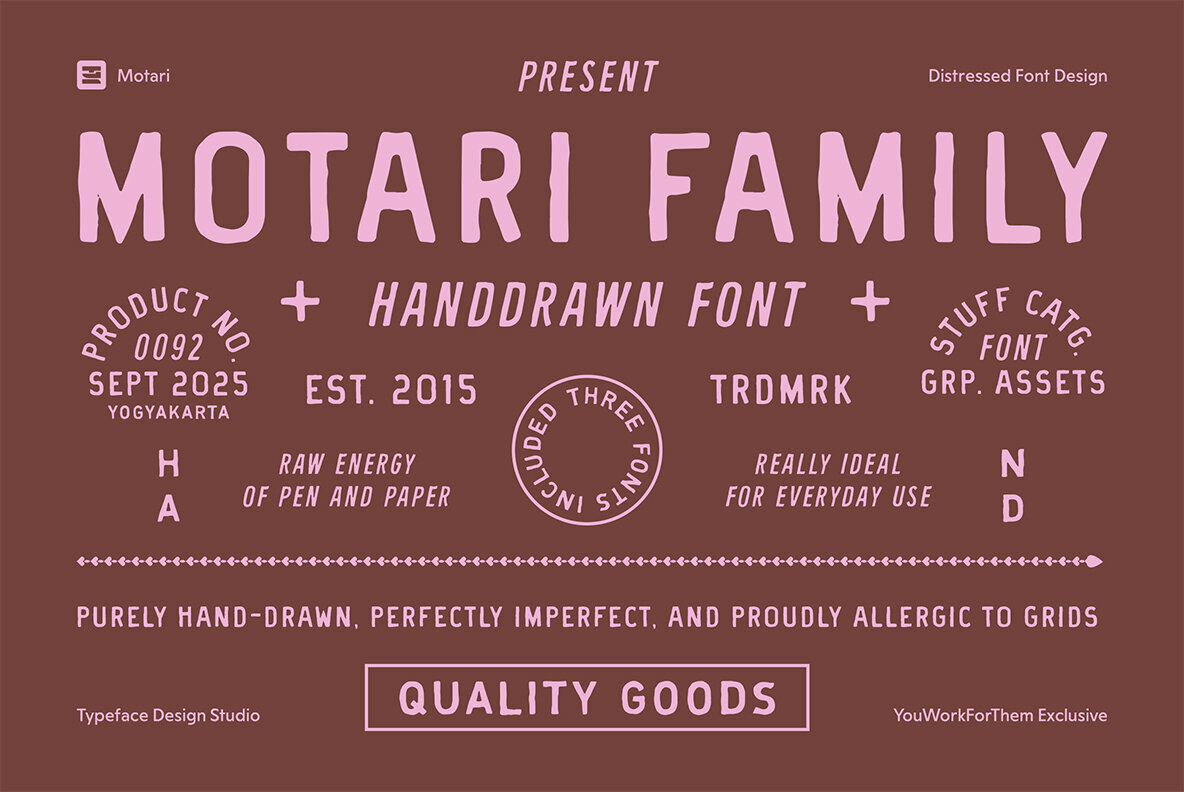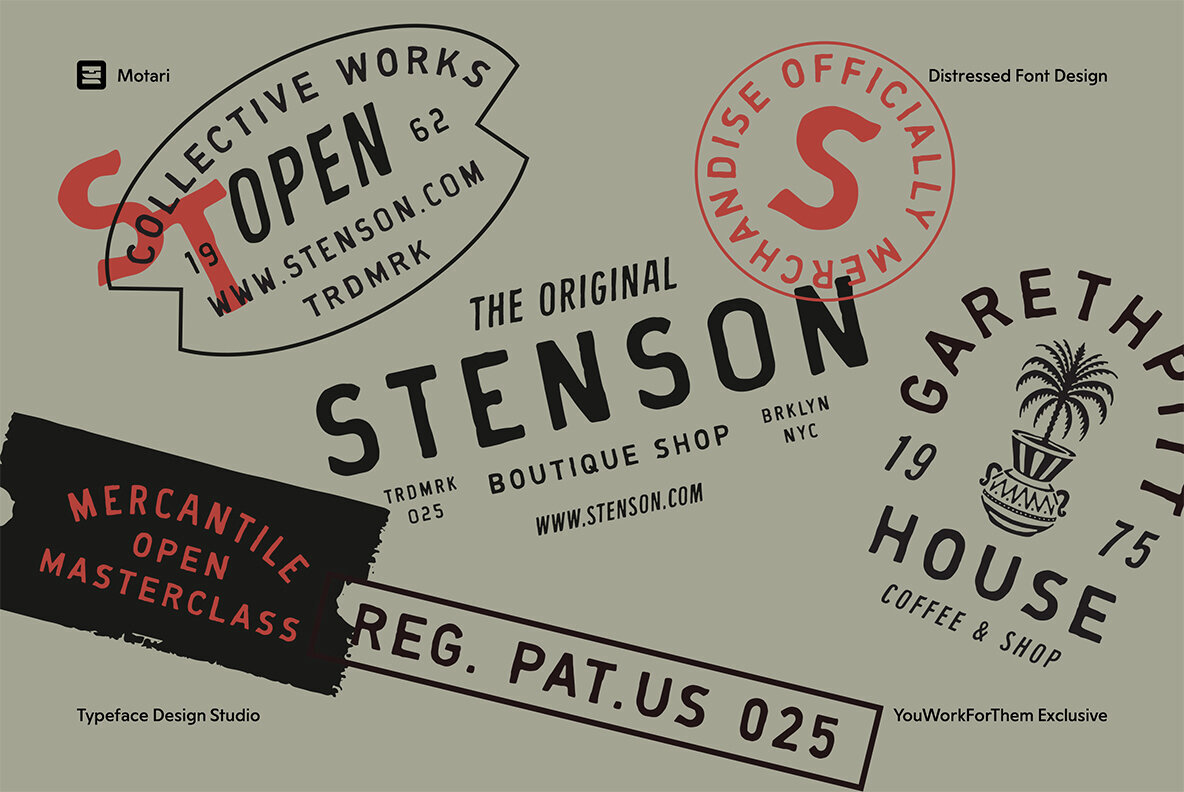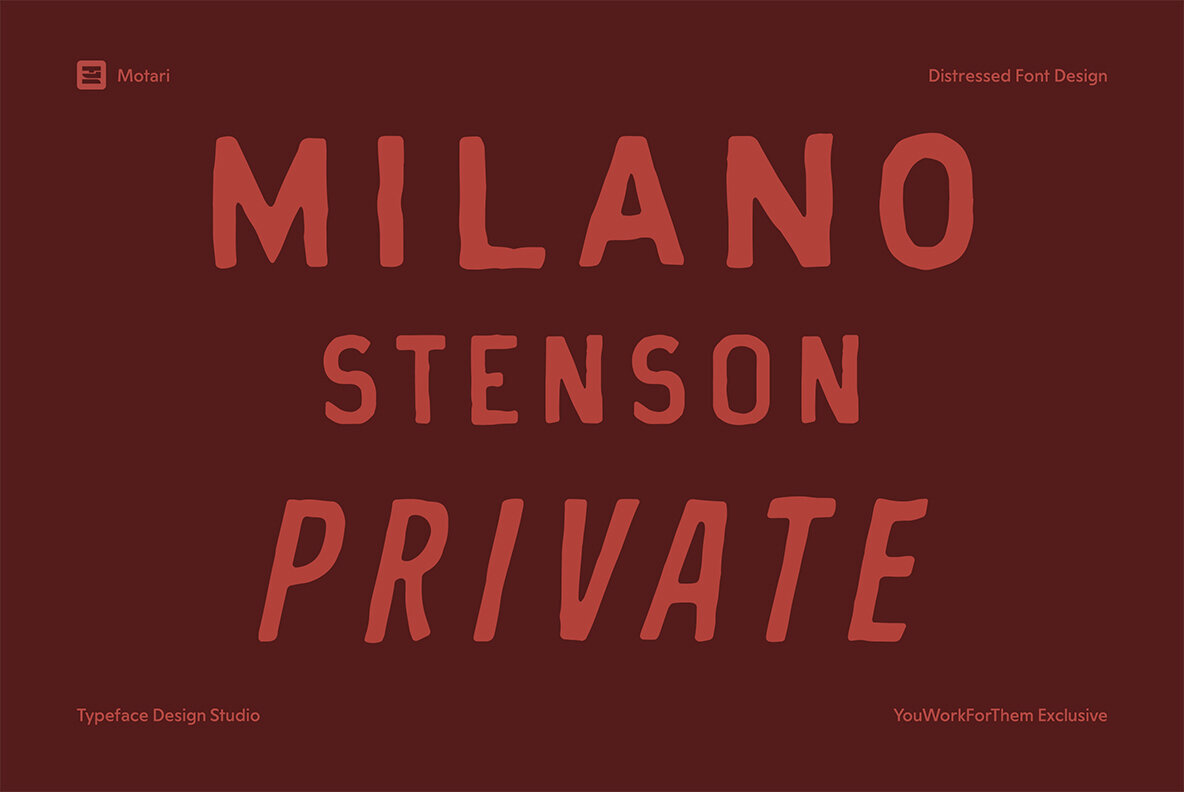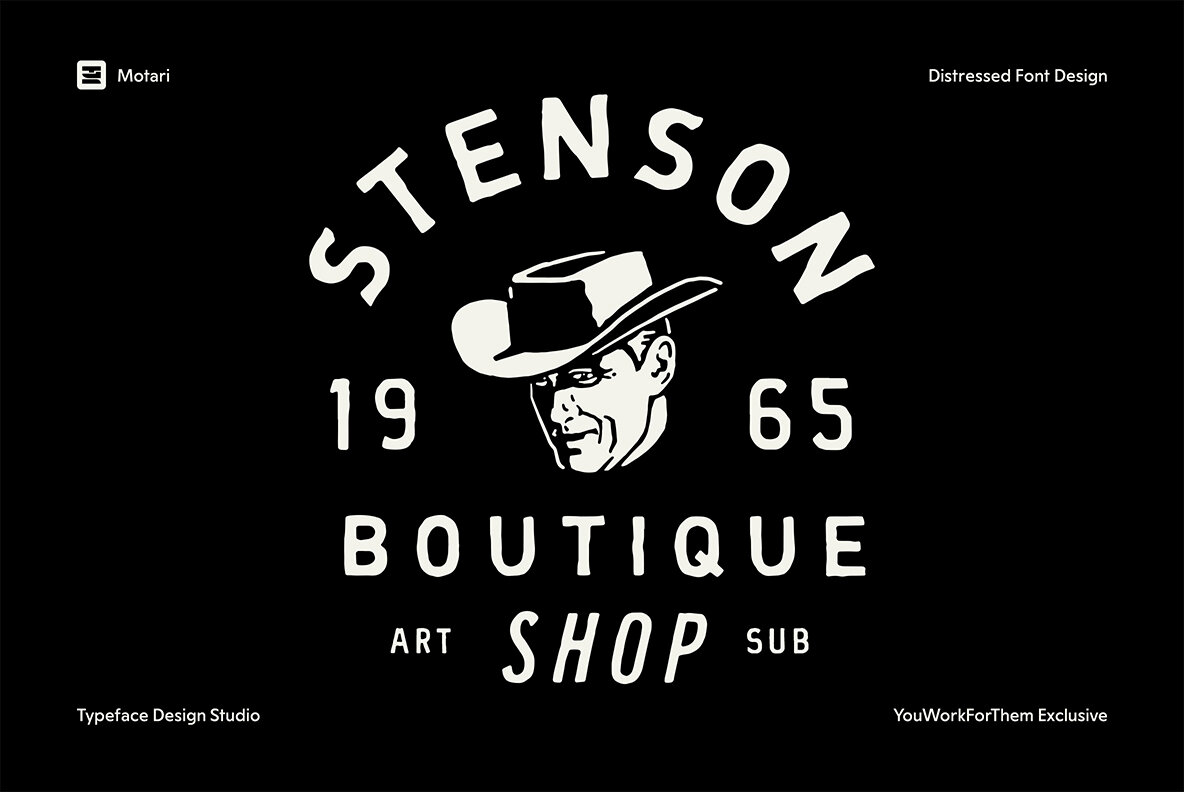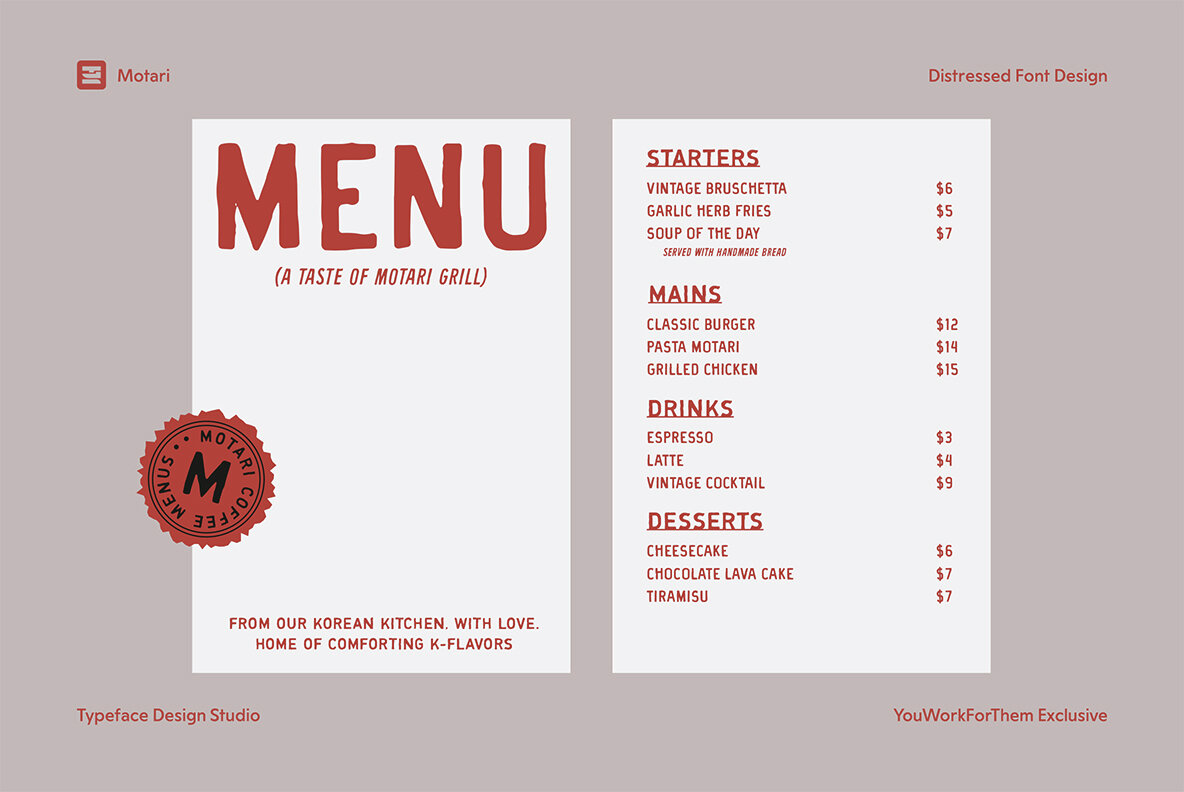
Motari Font
Motari defies conventional design norms with its deliberately raw aesthetic. This hand-drawn font family offers three distinct styles: Regular, Italic, and Bold. It's an ideal choice for projects seeking a touch of artisan flair, such as vintage posters, DIY packaging, restaurant menus, and band merchandise.Motari: A Rebellious Hand-Drawn Typeface